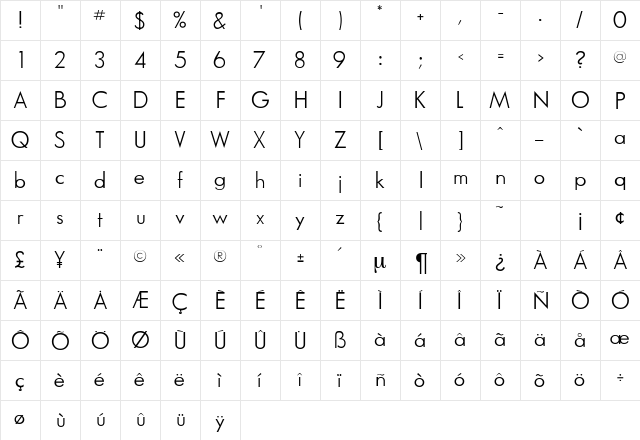
SansThomasDB Normal
Design Context for SansThomasDB Typeface
SansThomasDB is a composed and adaptable typeface that performs quietly and consistently across a wide range of design contexts.